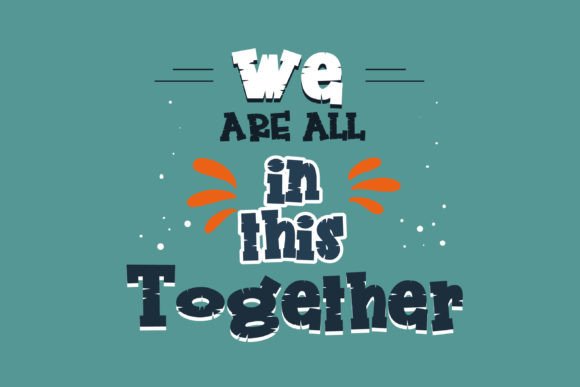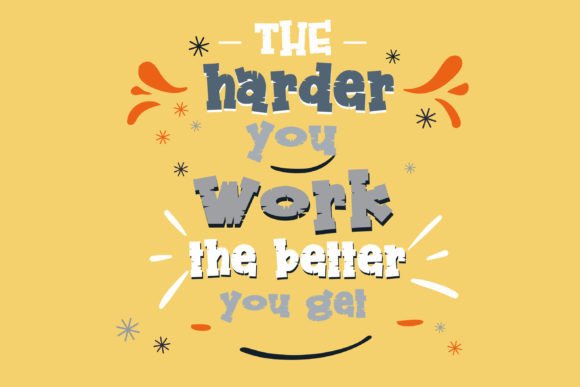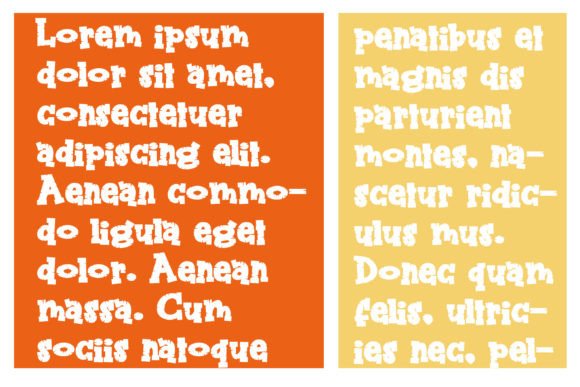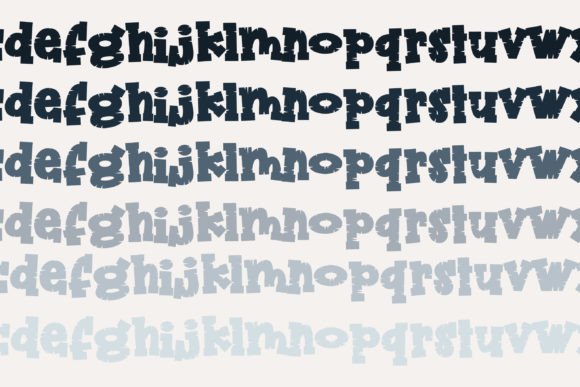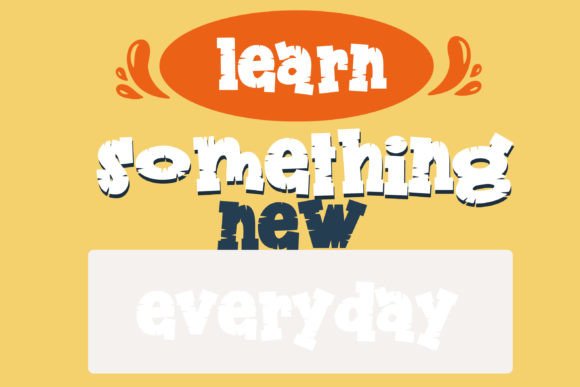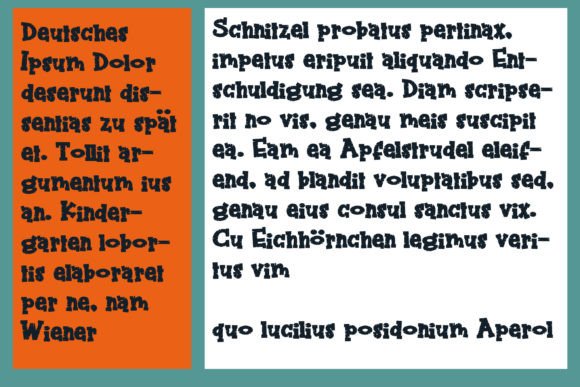
Introduction to Maihem Font
Do you remember the moment when the perfect font clicked into place, elevating your entire design project? For many creatives, that ‘aha’ moment is what makes the difference between a good design and a great one. The right font can make or break the tone and feel of your work, and that’s exactly what the Maihem Font does.
As a modern serif font with a textured finish, the Maihem Font is a game-changer for designers looking for a high-quality design resource. With its bold edges and strong curves, each letter has its own unique personality, making it perfect for headlines, logos, and creative projects that demand attention.
- Unique, hand-drawn style that adds a touch of personality to any design project
Honest Review: Maihem Font
I recently stumbled upon the Maihem Font, a free design resource that caught my attention. As a designer, I’m always on the lookout for high-quality fonts to elevate my creative projects. In this review, I’ll share my thoughts on what works well and what could be improved.
- ✨ Unique and bold design: The Maihem Font has a distinctive look that sets it apart from other fonts in its category.
- ✨ High-quality graphics: The font’s graphics are crisp and well-designed, making it perfect for use in a variety of creative projects.
- ✨ Transparent background: This is a great feature for designers who need to use the font on a transparent background or with a complex design.
- ⚠️ Limited character set: The Maihem Font’s character set is limited, which may not be suitable for designers who need to use the font for extensive text-based projects.
- ⚠️ Not ideal for small text: The font’s bold design makes it challenging to read when used in small text sizes.
Overall, I’m impressed with the Maihem Font’s unique design and high-quality graphics. While it has some limitations, it’s a great resource for designers looking for a bold and eye-catching font for their creative projects. If you’re looking for a free design resource, the Maihem Font is definitely worth checking out.
Tips for Getting the Most Out of Maihem Font
Use Maihem Font in combination with other design elements, such as images and graphics, to create a visually appealing design. Experiment with different font sizes and colors to find the perfect balance for your creative project. You can also use Maihem Font in conjunction with other free design resources to create a unique and high-quality design.
Maihem Font is perfect for creating graphics and social media posts for various occasions, such as weddings, birthdays, and holidays. You can also use it to create professional-looking documents and presentations, such as resumes and business proposals. With its high-quality design and transparent background, Maihem Font is a valuable design resource for any creative project.